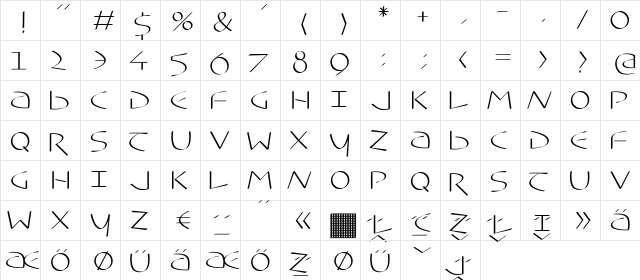
TypoasisUncial Regular
Design Context for TypoasisUncial Typeface
TypoasisUncial is a composed and adaptable typeface that performs quietly and consistently across a wide range of design contexts.